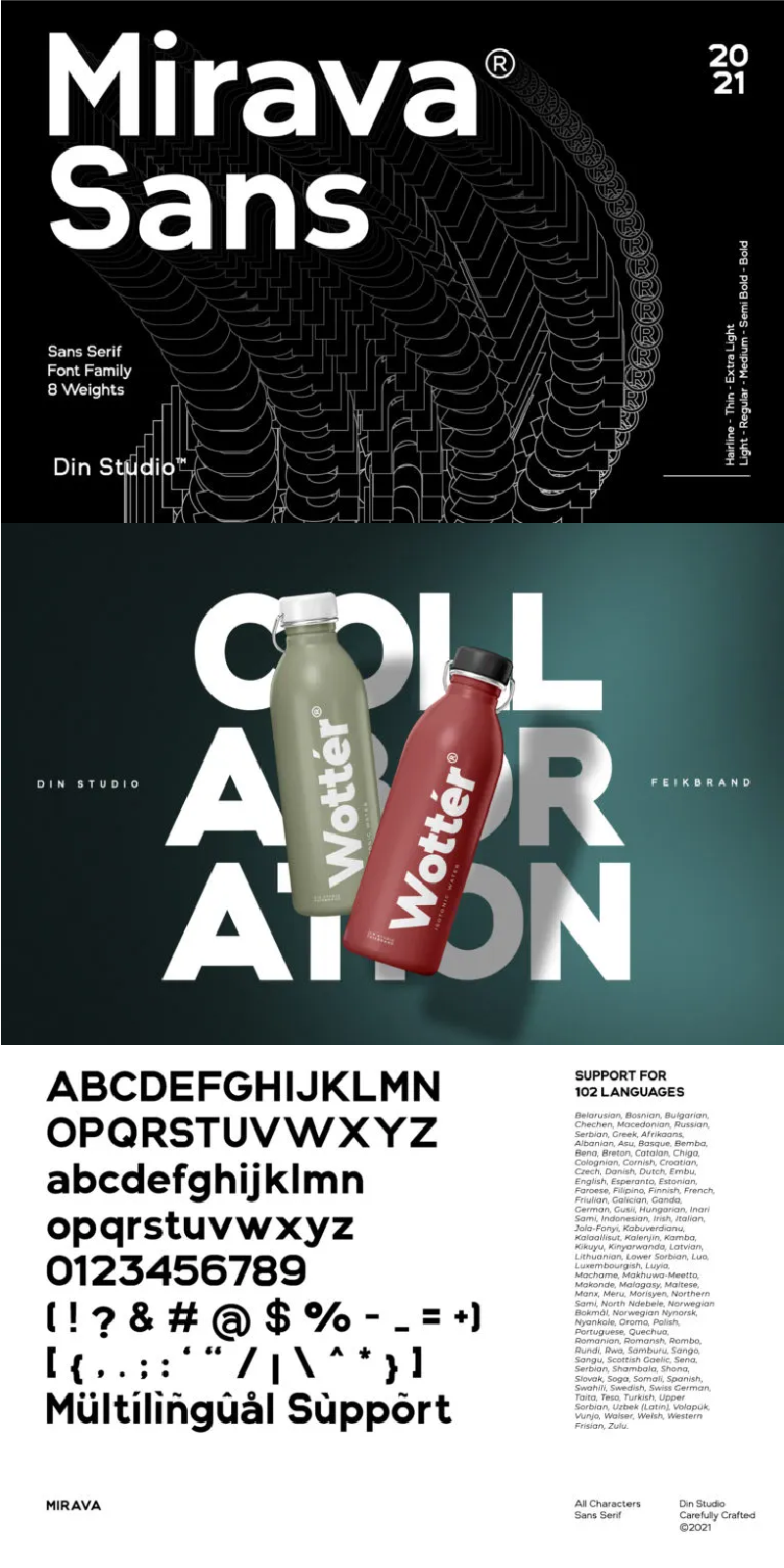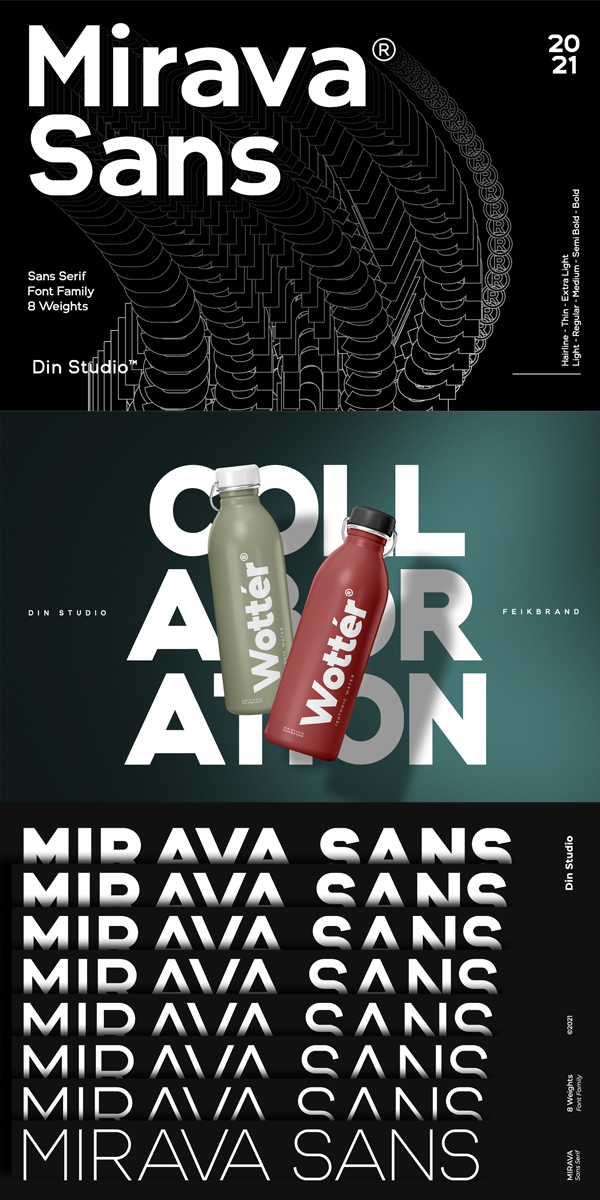
Mirava Sans Font
About Mirava Sans
Let’s welcome the Mirava Sans, a sans serif font family which is a delightful package for you.
With this font, you will get many options to maximize your designs in stylish fonts. This font is designed to bring your brandings to life and add a touch of modernity, fun and style. The font paves the way for you to write the information you need to send out to your audience. It is perfect to create amazing headings, logos, menus, social media graphics, etc.
Our font always includes Multilingual Supports to make your brandings reach a global audience. See the previews above to get some inspiration on how you can use them. Happy Designing!
It include 8 different weight fonts (otf, ttf, woff) :
-Mirava Sans Hairline
-Mirava Sans Thin
-Mirava Sans Extra Light
-Mirava Sans Light
-Mirava Sans Regular
-Mirava Sans Medium
-Mirava Sans Semi Bold
-Mirava Sans Bold